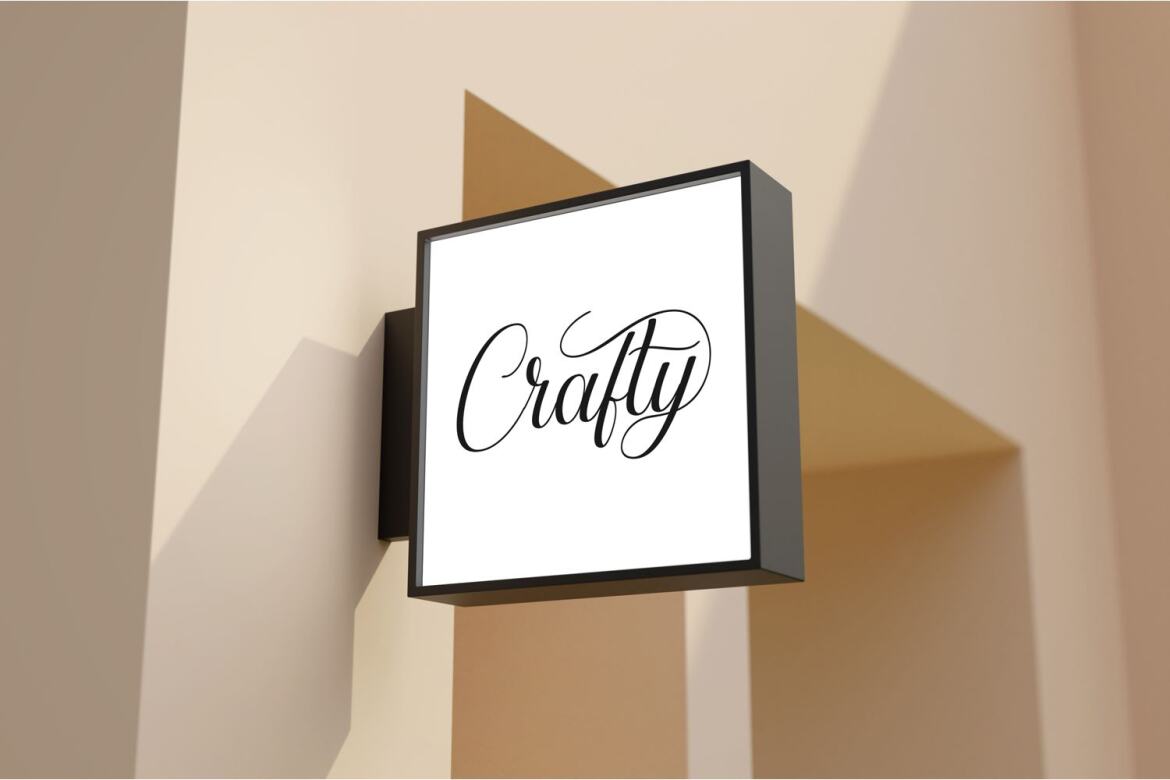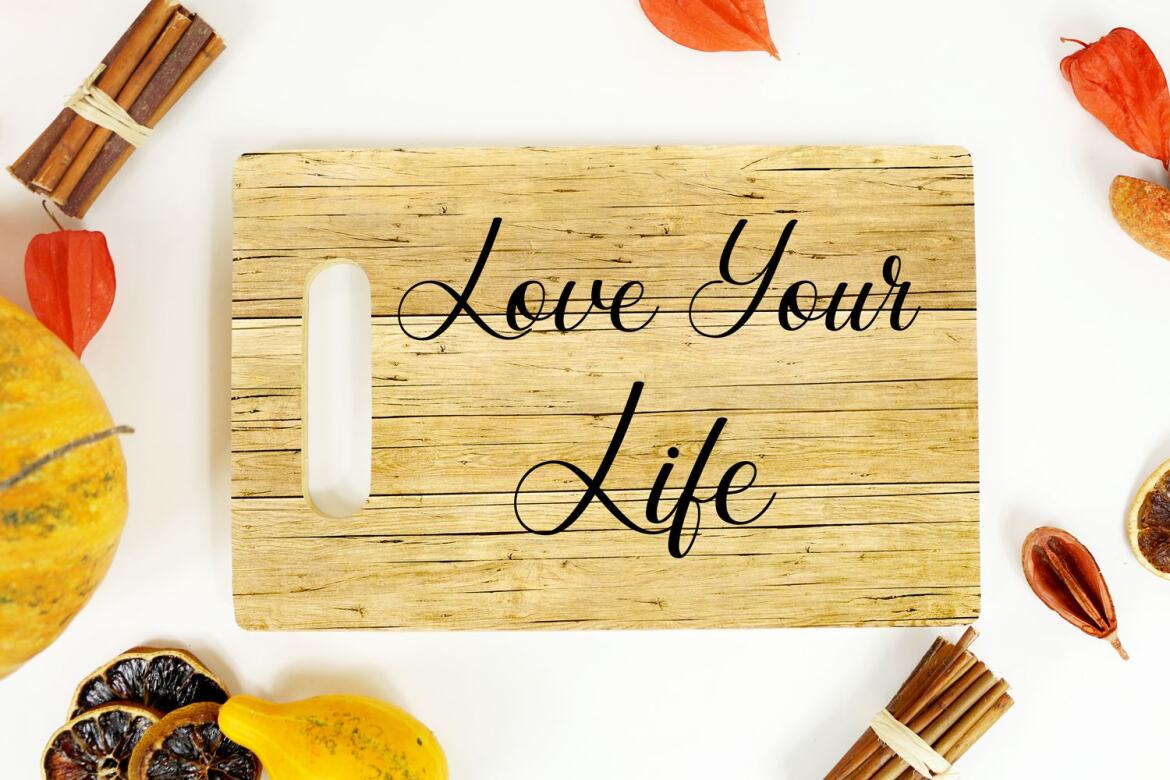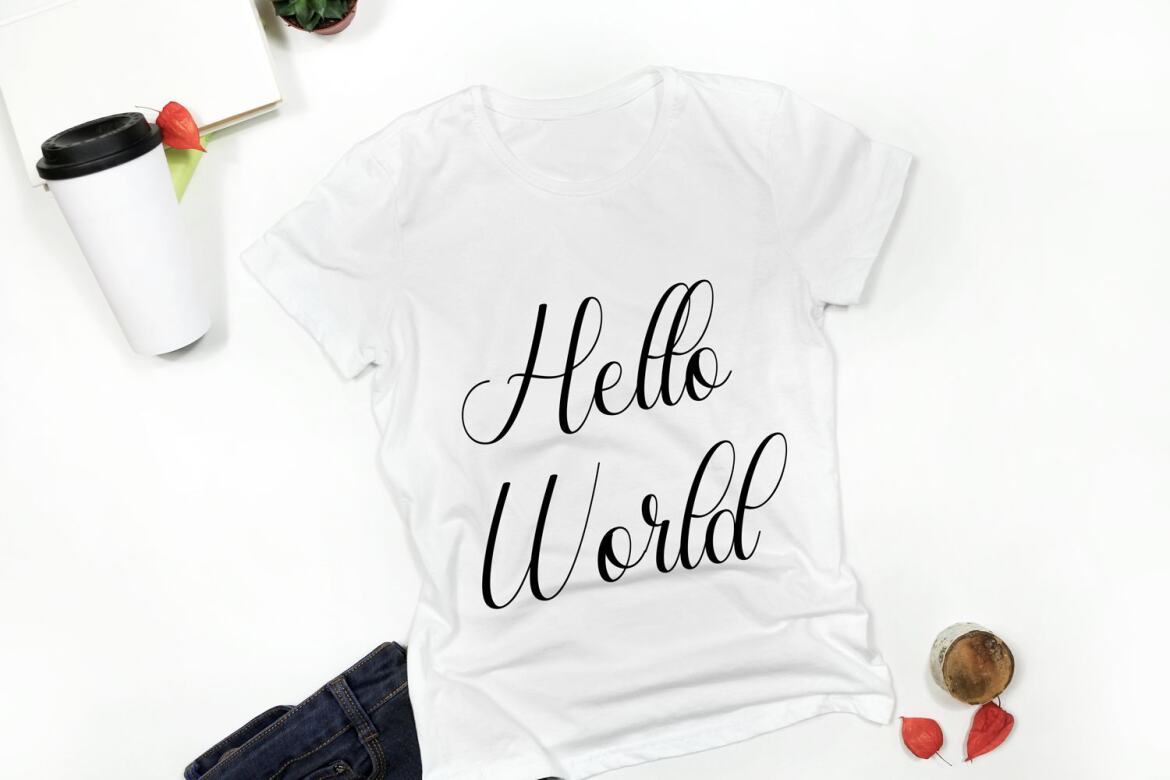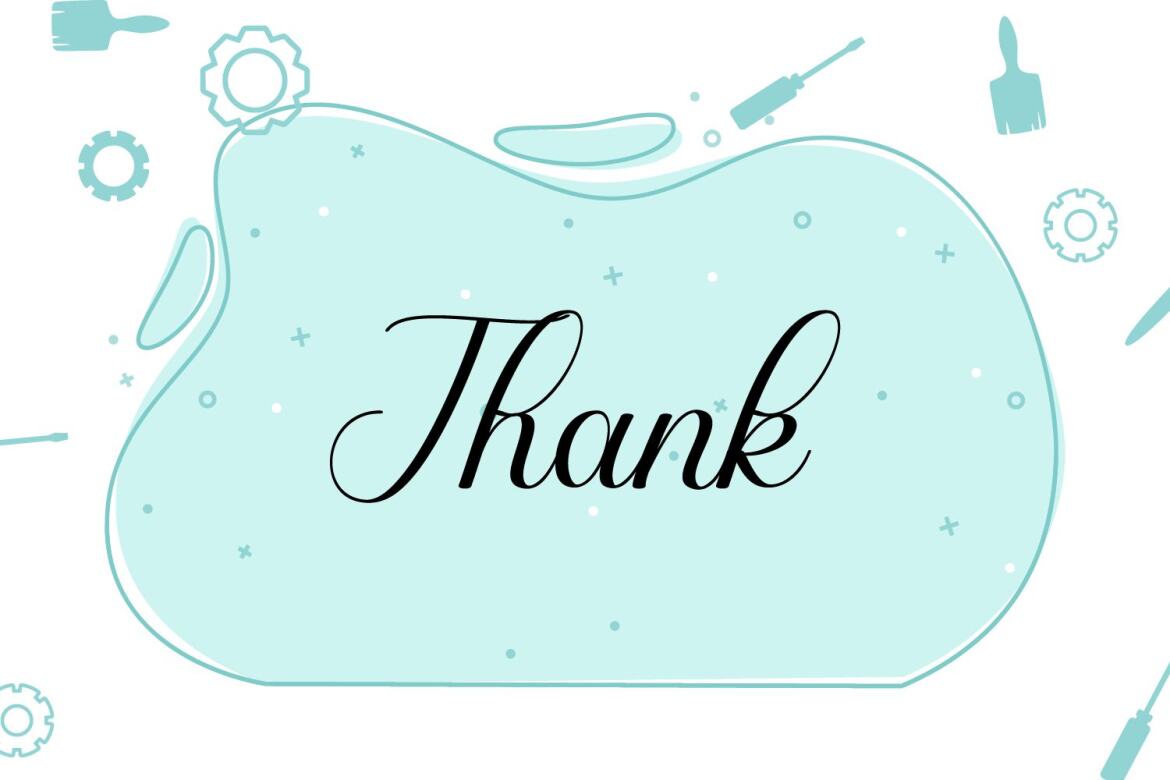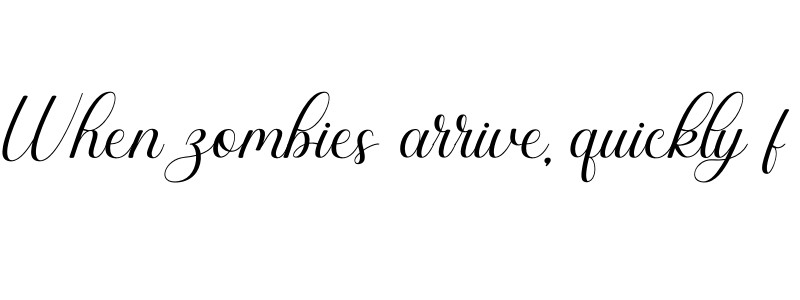
Crafty Holiday - Free Font
Crafty Holiday
DETAILS the latest style letters are perfect for wall displays, wedding invitations, social media post logos, advertisements, product packaging, product designs, labels, photography, watermarks, invitations, stationery, and any project that requires taste handwriting.